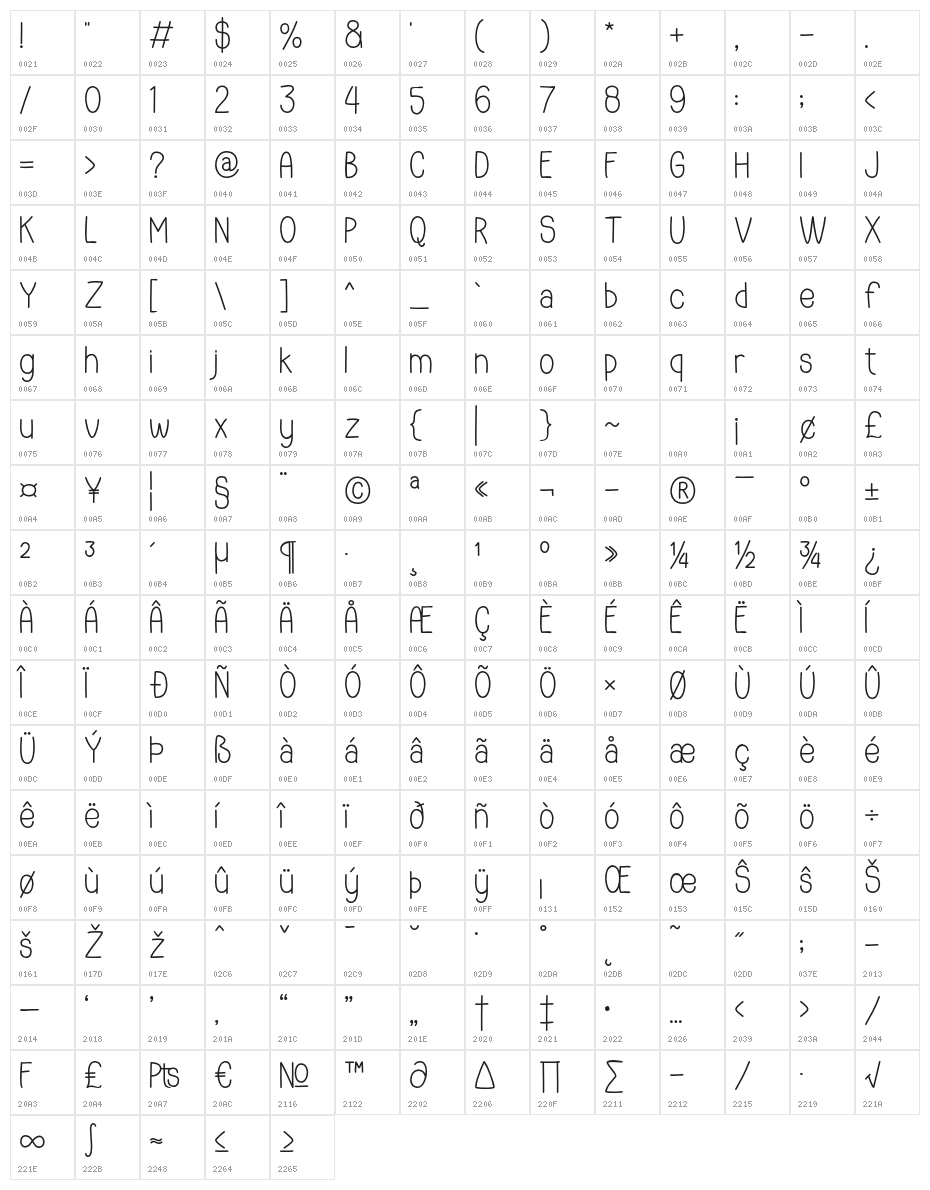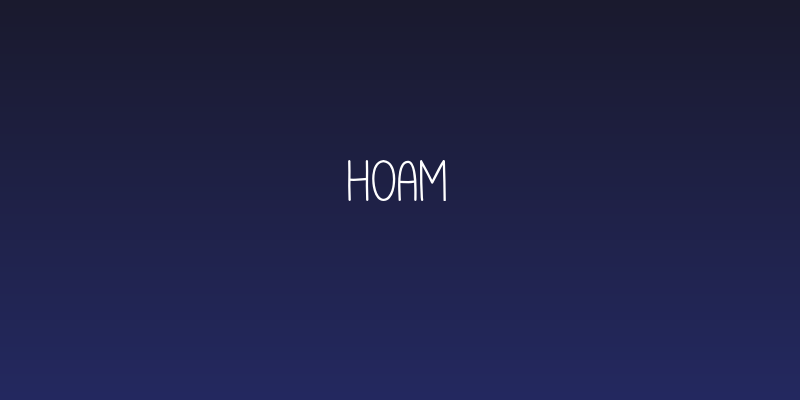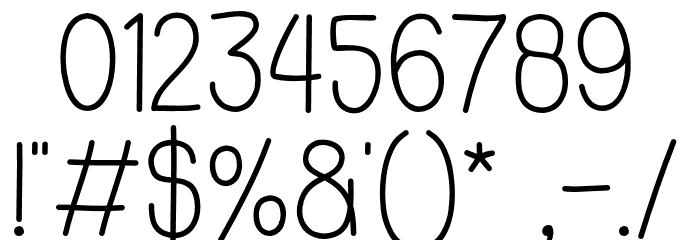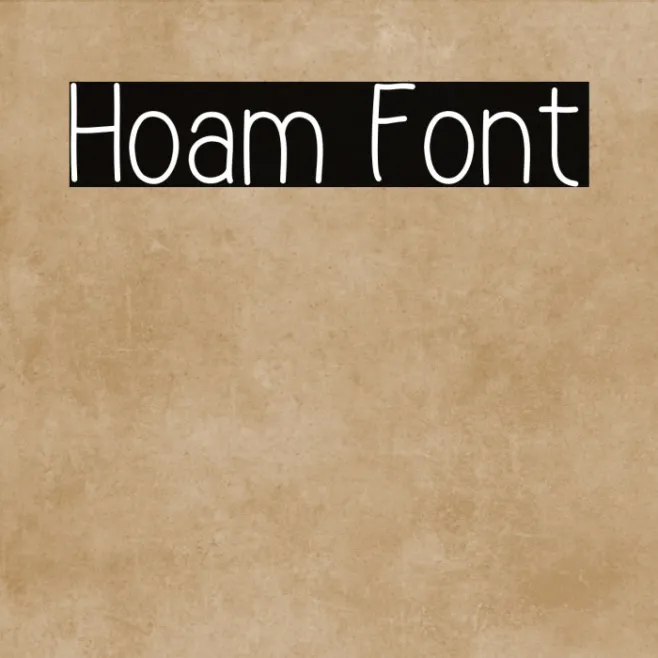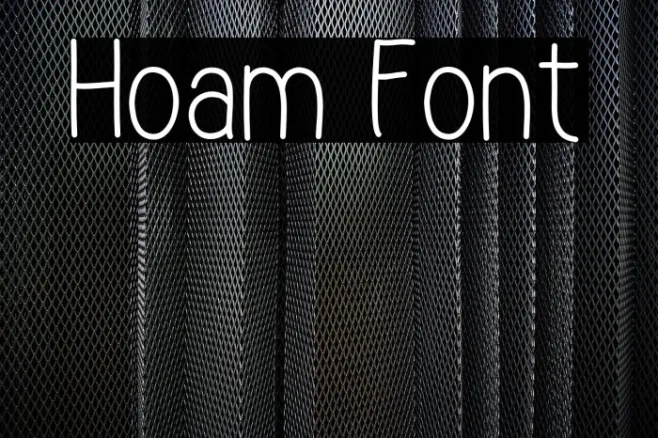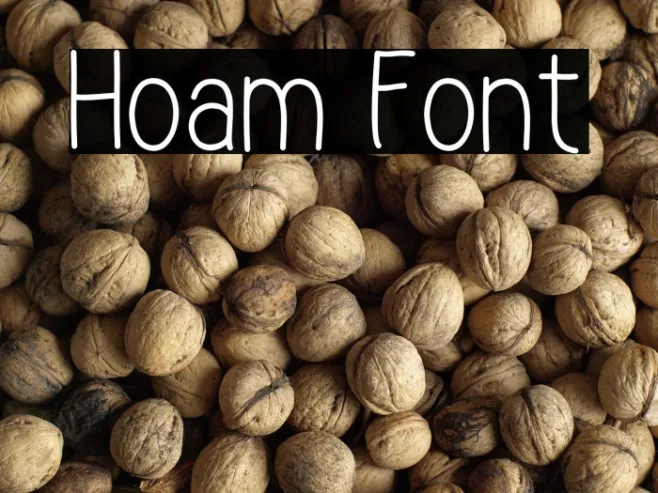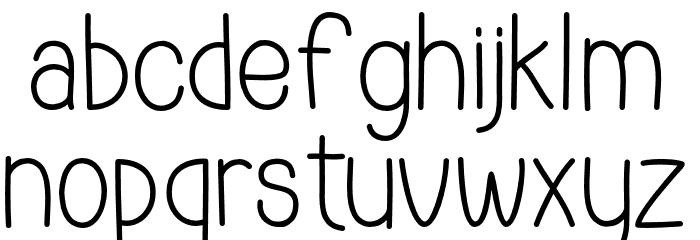
Hoam Font
Hoam Description
This font features a playful and whimsical style with rounded edges and a hand-drawn appearance. The characters are tall and narrow, giving it a unique and approachable look. The uppercase letters are slightly taller than the lowercase, maintaining a consistent width throughout. Numbers and special characters follow the same playful design, making it versatile for various uses. The strokes are consistent in thickness, contributing to a clean and modern aesthetic. This font is ideal for projects that require a friendly and informal touch.
| Proposed Projects | Ideal for children's books, greeting cards, casual branding, and playful posters. |